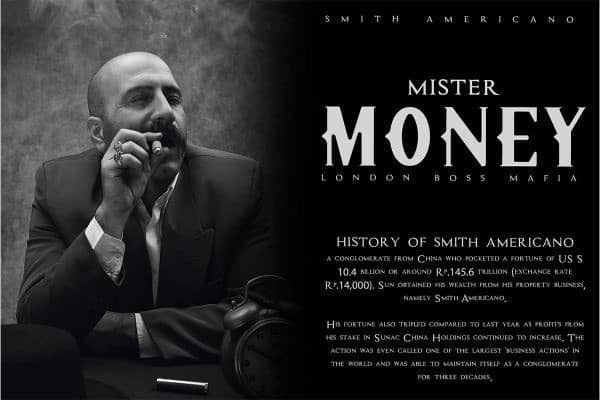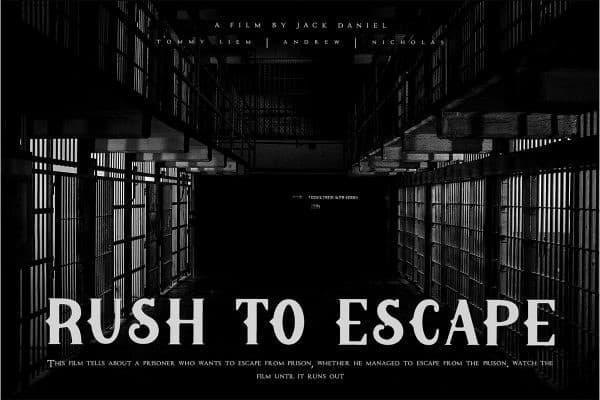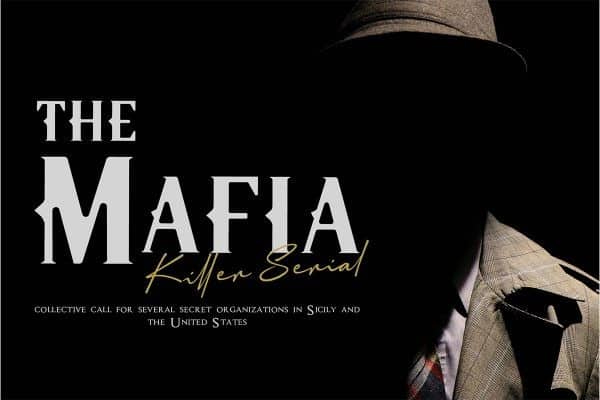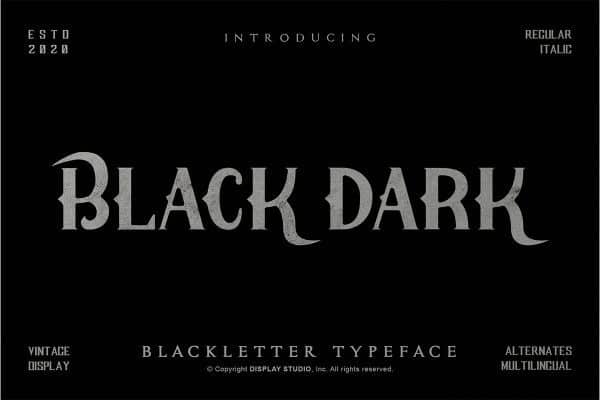
Introducing Black Dark Display Font, a display typeface made for both then and now. It’s designed and shared by Display Studio. This font comes with Uppercase Letters, Numbers and some punctuation. This one is serif & reverse contrast so it’s perfect for headlines and making a big visual impact with a glance! It’s a versatile typeface that can be used as both a display font or a text font.